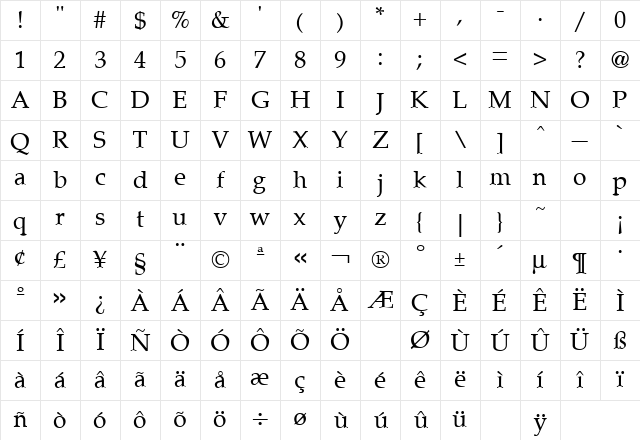
Palladia Regular
Design Context for Palladia
Palladia is a composed and adaptable typeface that performs quietly and consistently across a wide range of design contexts.
Pro Tip: Use Palladia in both headline and body roles to test its range before committing to a single application.